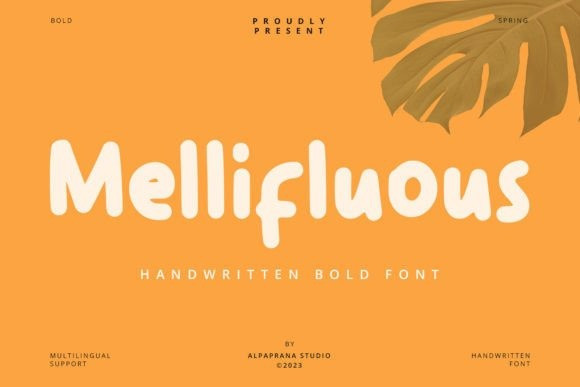
Mellifluous Playful Font
Mellifluous Playful Font is a fun, friendly, and flowing handwritten font. It has beautiful and well-balanced characters and as a result, it matches a wide pool of designs.